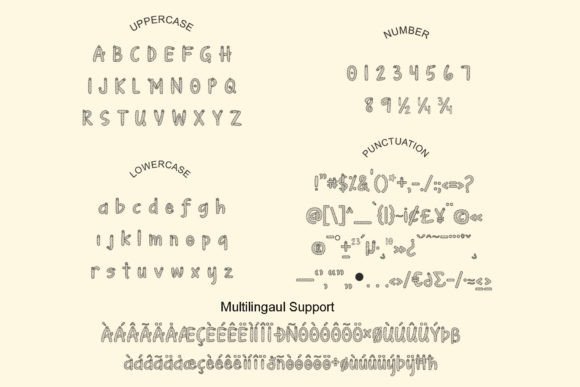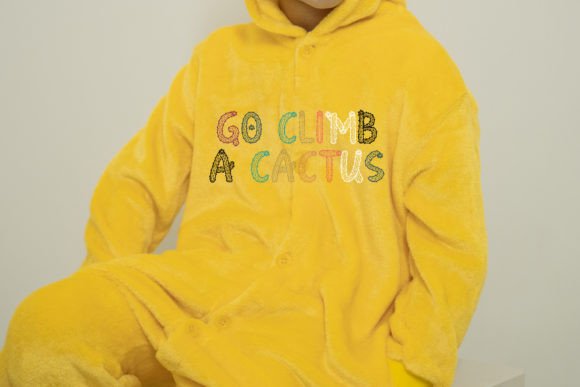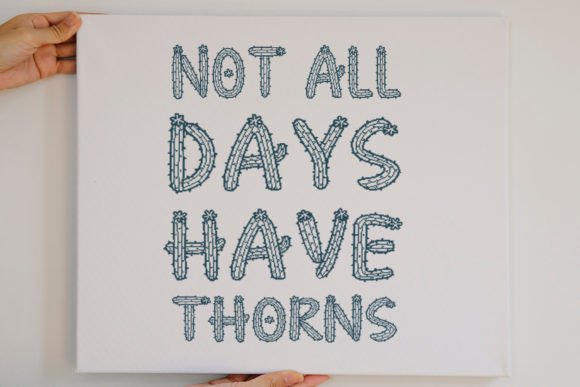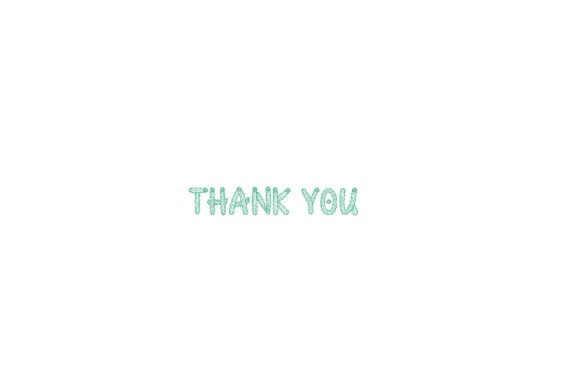
Have you ever been working on a project, and you just can’t seem to find the right font to match your vision? You know, that perfect combination of style and personality that makes your design pop? That’s exactly what I experienced when I stumbled upon the Cactus Garden Font.
Designed to evoke a sense of cheerfulness and fun, the Cactus Garden Font is a decorative typeface that’s perfect for branding and logomarks, merchandise, and just about anything else that needs a little extra oomph. Whether you’re working on a social media post, an invitation, or a packaging design, this font is sure to bring a smile to your audience’s faces.
As a designer, having access to a versatile font like the Cactus Garden Font can be a total game-changer. It adds an extra layer of creativity and flexibility to your work, allowing you to experiment with new ideas and push the boundaries of what’s possible.
Cactus Garden Font Key Features
- Font Family: Cactus Garden Font is a unique, hand-drawn sans-serif typeface.
- Unique Characteristics: Features a distinctive, organic feel with intricate details and subtle texture, giving it a natural and earthy aesthetic.
Cactus Garden Font Review
I recently had the chance to work with the Cactus Garden Font, and I must say it’s a unique addition to any design project. ✨ One of the things that stood out to me was the font’s playful, cactus-inspired design. It’s perfect for adding a touch of whimsy to branding materials, social media graphics, and even websites.
- ✨ The font’s distressed texture and hand-drawn feel make it perfect for creative projects that need a bit of edge.
- ✨ The font’s versatility makes it suitable for a wide range of design applications, from logos to typography-heavy designs.
However, I did encounter some limitations. ⚠️ The font’s design, while unique, may not be to everyone’s taste. Some users may find the distressed texture and hand-drawn feel too busy or overwhelming.
- ⚠️ The font may not be suitable for corporate or formal design projects where a more traditional, clean font is preferred.
- ⚠️ The font’s limited character set may make it difficult to use for longer blocks of text.
Overall, I think the Cactus Garden Font is a great choice for designers looking to add a bit of personality to their projects. While it may not be suitable for every design application, it’s definitely worth considering for creative projects where a unique font is needed.
Getting the Most Out of Cactus Garden Font
To get the most out of Cactus Garden Font, use it for:
- Whimsical designs and illustrations.
- Adding a touch of bohemian style to your designs.
- Creating a unique and eye-catching visual identity.
While Cactus Garden Font has a more playful, whimsical feel, Pacifico is more elegant and refined, making it a better choice for projects that require a sense of sophistication.
Q: What is the recommended font size for the Cactus Garden Font?
The Cactus Garden Font is designed to be highly legible at a wide range of font sizes. However, we recommend using font sizes between 12pt and 24pt for optimal readability. This will ensure that your text remains clear and easy to read, even at smaller font sizes.